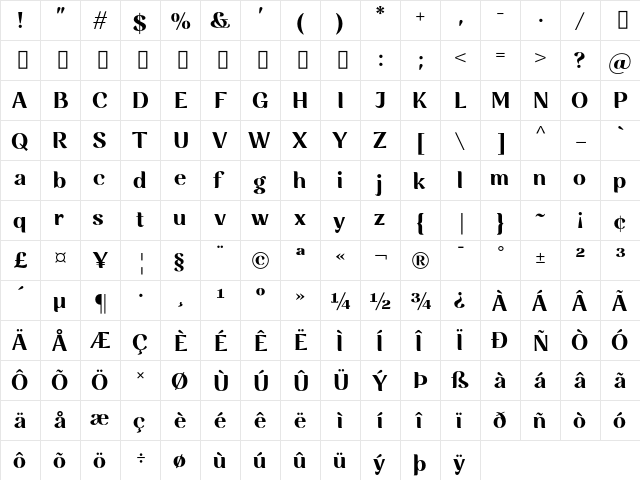
Rossanova Personal Use Bold
Design Context for Rossanova Personal Use Typeface
Rossanova Personal Use takes a measured approach to typography — its balanced proportions and neutral character make it a reliable workhorse for both digital and print work. Its bold stroke weight gives it real presence on the page.